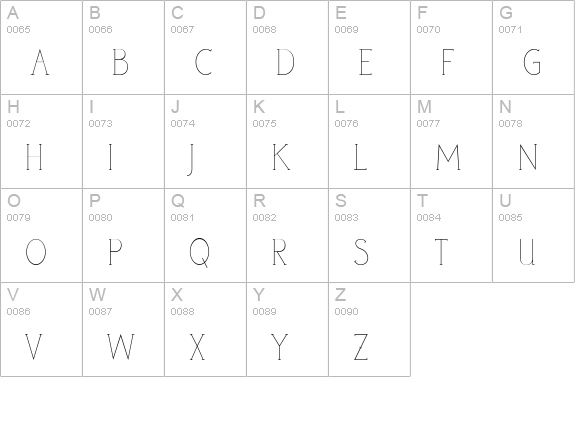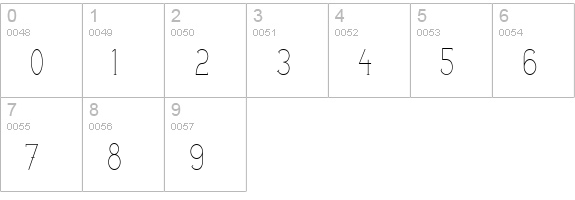
Introducing the Poor Weekdays Serif Font, a versatile and stylish typeface that adds a touch of elegance to any design project. With its clean and sophisticated letterforms, this font is perfect for creating memorable logos, eye-catching headlines, and elegant invitations. The Poor Weekdays Serif Font exudes a sense of timeless charm, making it the ideal choice for projects that require a touch of classic beauty. Its carefully crafted letterforms and subtle serifs convey a sense of sophistication and refinement, while maintaining readability and legibility across various mediums. But what sets the Poor Weekdays Serif Font apart is not just its stunning design, but also the fact that it is freely available to download at FontsMarket.com. Yes, you read that right – this incredible font is completely free, allowing you to effortlessly elevate your designs without breaking the bank. Whether you're a seasoned designer looking to add a new font to your collection or a beginner in need of a reliable and stylish typeface, the Poor Weekdays Serif Font is the perfect choice. With its timeless design and effortless elegance, it is sure to become a staple in your creative toolbox. So why wait? Head over to FontsMarket.com now and download the Poor Weekdays Serif Font for free. Elevate your designs and leave a lasting impression with this stunning typeface that effortlessly combines classic beauty with modern versatility.